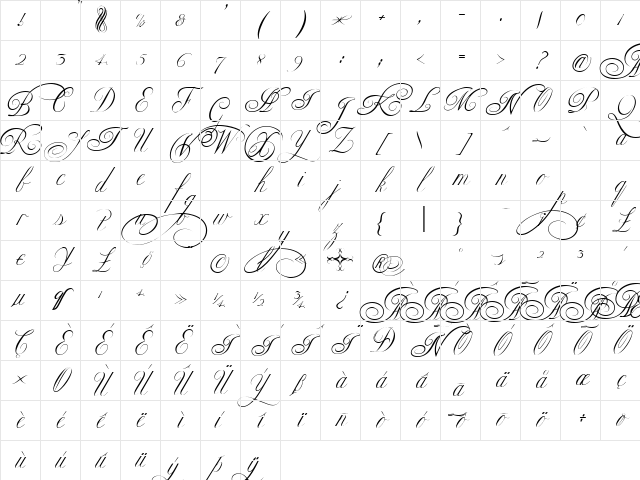
Ekaterina Velikaya Two Regular
Foundry: Alexandra Gophmann (rusifikation)
Designer: Alexandra Gophmann
Design Context for Ekaterina Velikaya Two
Ekaterina Velikaya Two is a composed and adaptable typeface that performs quietly and consistently across a wide range of design contexts.